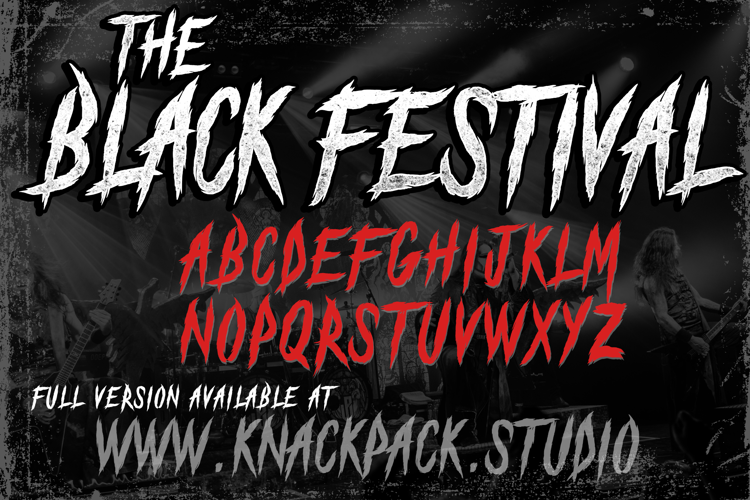
The Black Festival Demo Font
About The Black Festival Demo Font
THE BLACK FESTIVAL
- Heavy grunge inspired font perfect on your school projects, covers, etc.
- Lifestyle modern theme font for branding, website, mobile app etc.